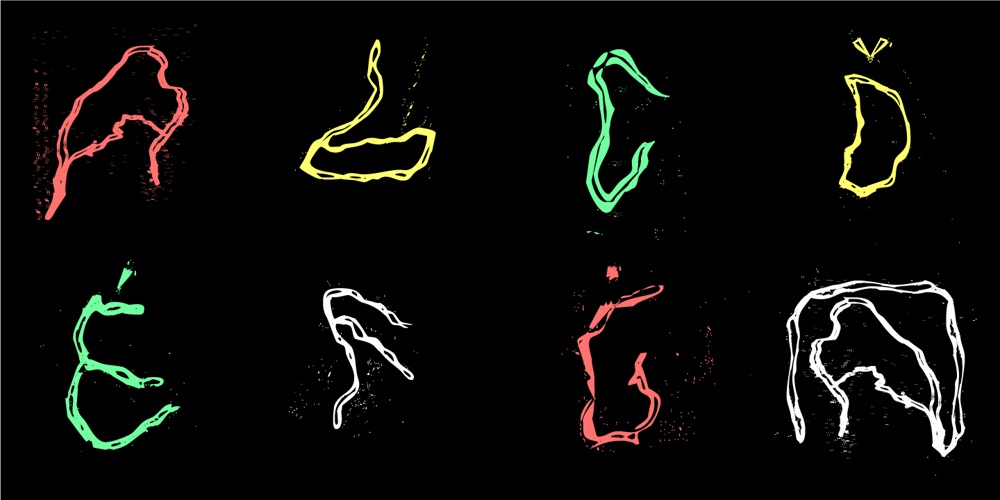
Happy Brain Creepy Thalamus Font Family was designed by Manuel Viergutz and published by TypoGraphicDesign. Happy Brain Creepy Thalamus contains 1 styles and family package options. CONCEPT/ CHARACTERISTICS The base was a head-vein illustration. This served as a design grid. Novel letterforms were sought and found. Hand-drawn analog and digitized later. Experimentally, novel, fresh and an eye-catcher. Completely new insights into the human brain. A font for happy thoughts. ghostly visions, or simply for the next freshen party flyers. APPLICATION AREA The happy, creepy, Horror handmade font »Happy Brain Creepy Thalamus« with many language support would look good at headlines. Magazines or websites, party flyer, movie posters, music Poster, music covers or webbanner. TECHNICAL SPECIFICATIONS Headline Font | Display Font | Handmade Horror Font “Happy Brain Creepy Thalamus” OpenType Font with 283 glyphs, alternative letters and ligatures (with accents & €) & 1 style (regular).